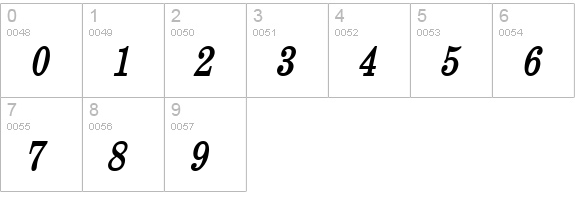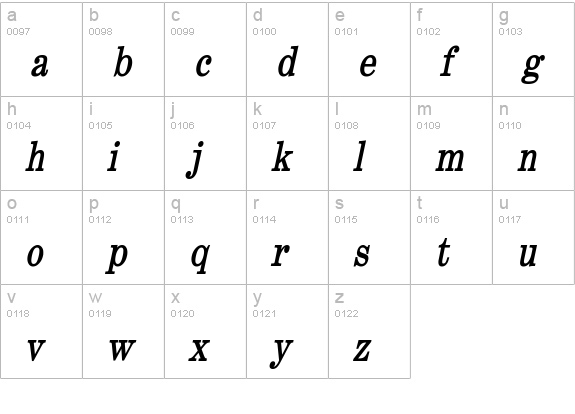
Annual-Condensed Bold Italic Font Details
Annual-Condensed Bold Italic is a strong, high-contrast, condensed-width, italic variant in the Annual typeface family \xE2\x80\x94 well suited to headlines, attention-grabbing titles, and strong calls-to-action.
The Annual-Condensed Bold Italic font is a striking and elegant typeface that exudes sophistication and modernity. Its condensed design allows for efficient use of space while retaining a bold and impactful presence on the page. The italicized style adds a touch of flair and dynamic energy to any text, making it perfect for headings, titles, and other attention-grabbing elements. What sets the Annual-Condensed Bold Italic font apart is not only its visual appeal but also its versatility and readability across various design projects. Whether you are creating posters, flyers, websites, or branding materials, this font will make a strong statement and leave a lasting impression on your audience. Best of all, the Annual-Condensed Bold Italic font is available for free download at FontsMarket.com. This means you can easily access and use this high-quality typeface in your projects without any cost or restrictions. Don't miss out on the opportunity to enhance your designs with the Annual-Condensed Bold Italic font today!